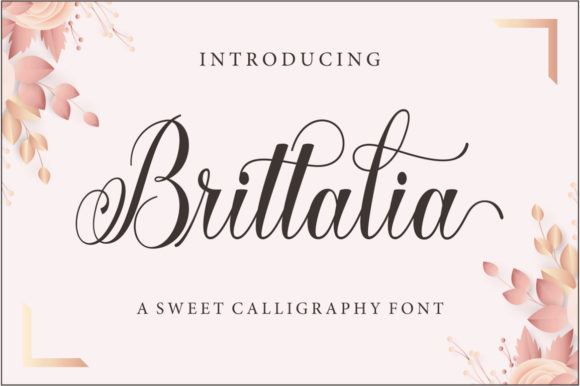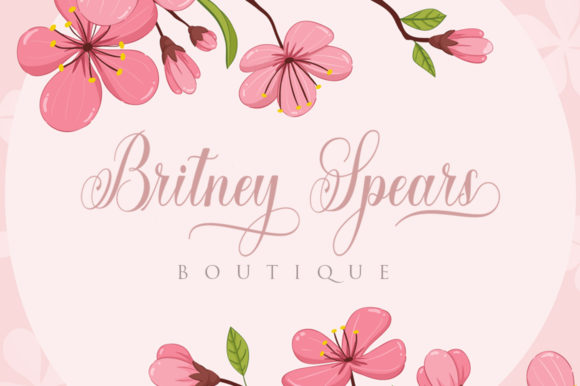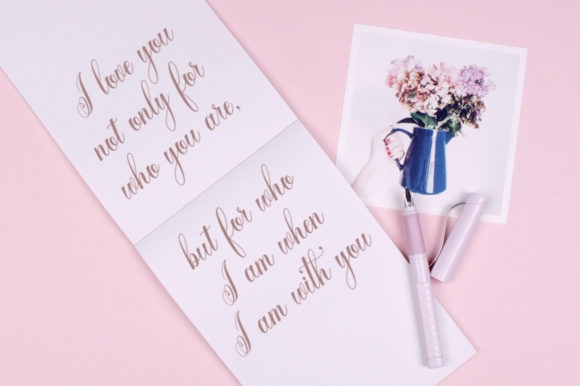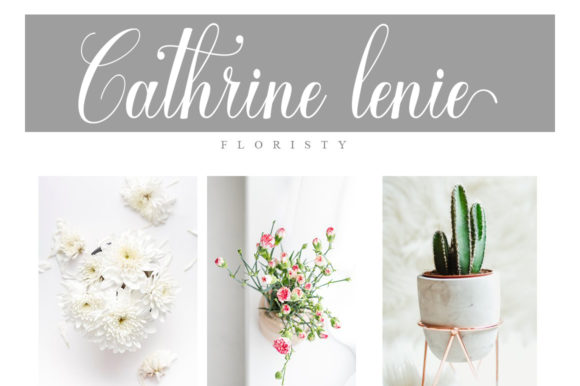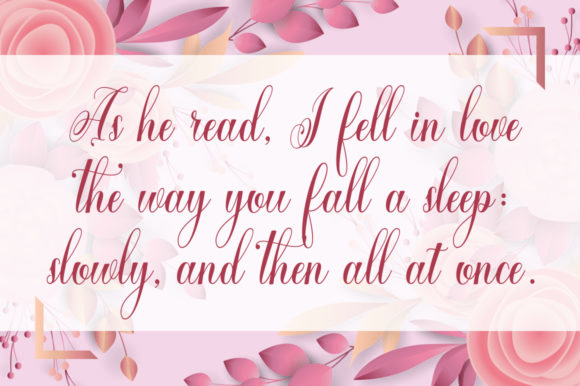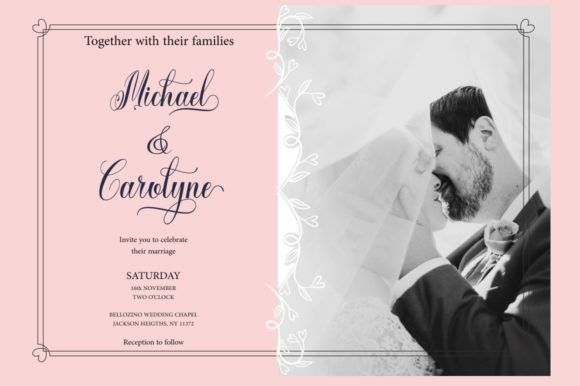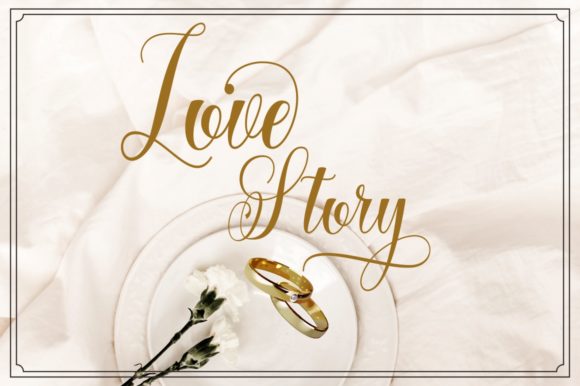
HomeScript FontsBrittalia Script Font Script Fonts Brittalia Script Font FacebookXPinterestWhatsApp Brittalia Script Font Poster 2 Brittalia Script Font Poster 3 Brittalia Script Font Poster 4 Brittalia Script Font Poster 5 Brittalia Script Font Poster 6 Brittalia Script Font Poster 7 About Brittalia Script Font Brittalia is a fun and cool script font with a unique charm. Fall in love with its timeless appeal. DOWNLOAD ON CREATIVE FABRICAThis font is sold and delivered by Creative Fabrica. Font Canyon may earn a commission if you buy through this link. People also explored Special Gift Font Bee Darling Font Florista Font Hayunikah Font Macabre Font Green House Font Springtime Font Fuel Uni Extended Monthly Issue JNL Font 304 0 TagsBrittalia Script Font Previous articleNaquia FontNext articleOnlyone Font LEAVE A REPLY Cancel reply Comment: Please enter your comment! Name:* Please enter your name here Email:* You have entered an incorrect email address! Please enter your email address here Website: Save my name, email, and website in this browser for the next time I comment. Personal Use Free Wallabys Junior Personal Use Free Read more about this font Coffete Personal Use Free Read more about this font Fat Max Personal Use Free Read more about this font Abuget Free Script Personal Use Free Read more about this font BLOG Free Fonts Risk: Why Free Fonts Can Be Dangerous for Designers Free Fonts Risk: Why Free Fonts Can Be Dangerous for Designers Using free fonts is a common practice in web and graphic design. However, the... How to Install and Use Fonts on Windows, macOS, and Web Projects Where to Buy American Fonts Online in 2024 To increase your work productivity, choose the most readable fonts.